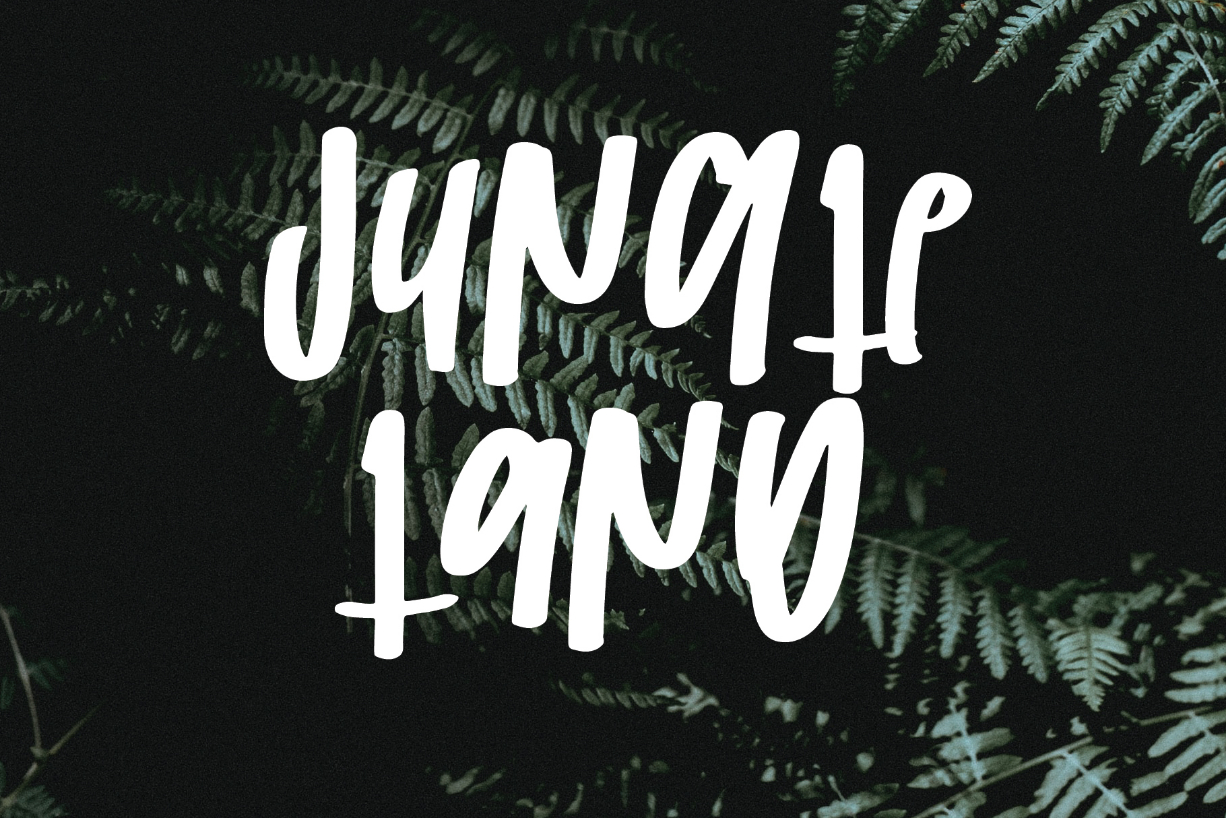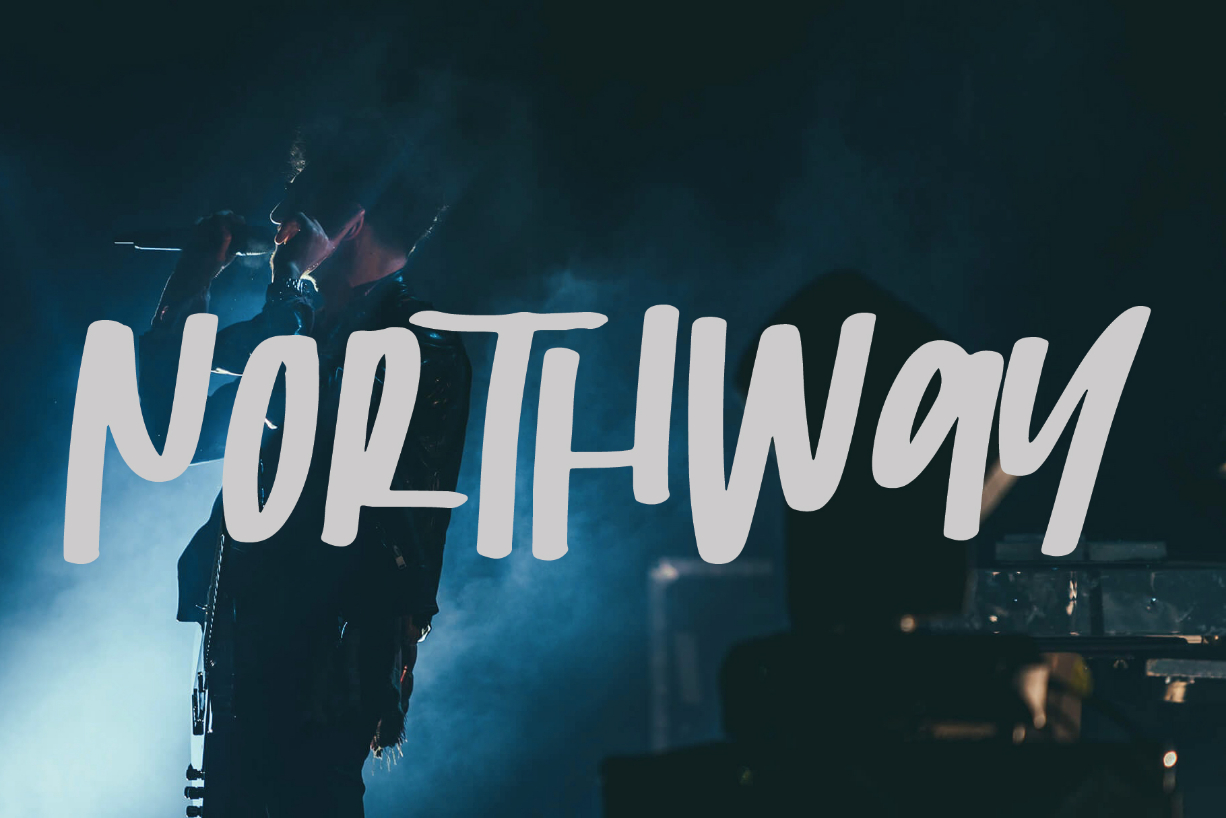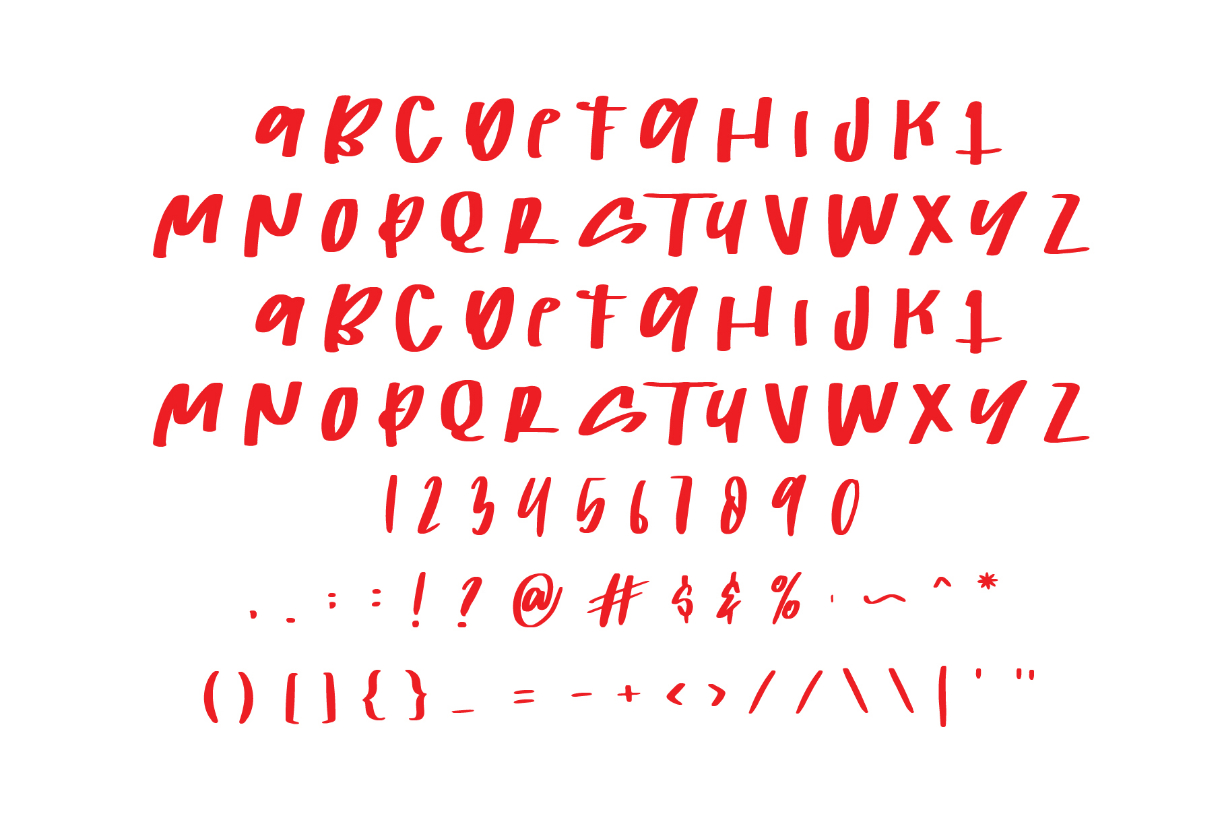
About Judge Font
Judge features a strong, powerful and unique style that will take any design project to the next level. Get inspired by its authentic charm!